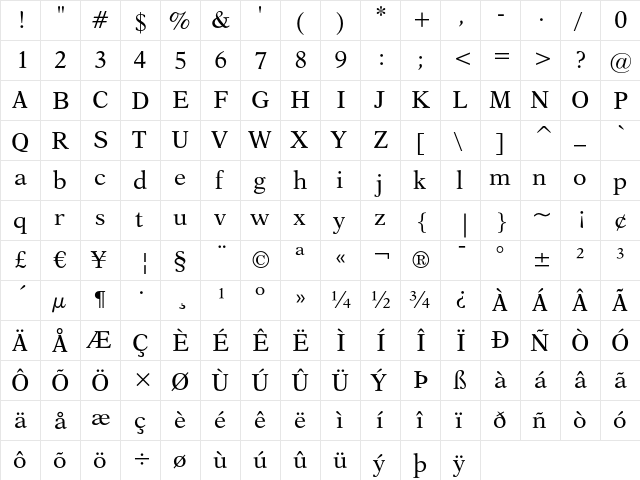
Dutch 823 Regular
Design Context for Dutch 823 Typeface
Dutch 823 takes a measured approach to typography — its balanced proportions and neutral character make it a reliable workhorse for both digital and print work.